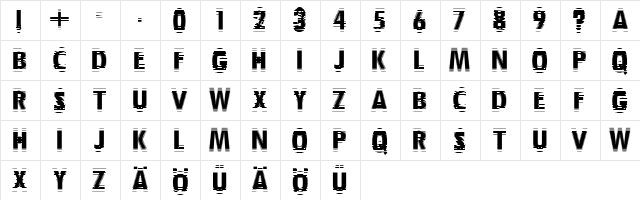
Nervous Regular Free Font
Nervous Regular
Nervous Family
Design Context for Nervous
Nervous is a composed and adaptable typeface that performs quietly and consistently across a wide range of design contexts.